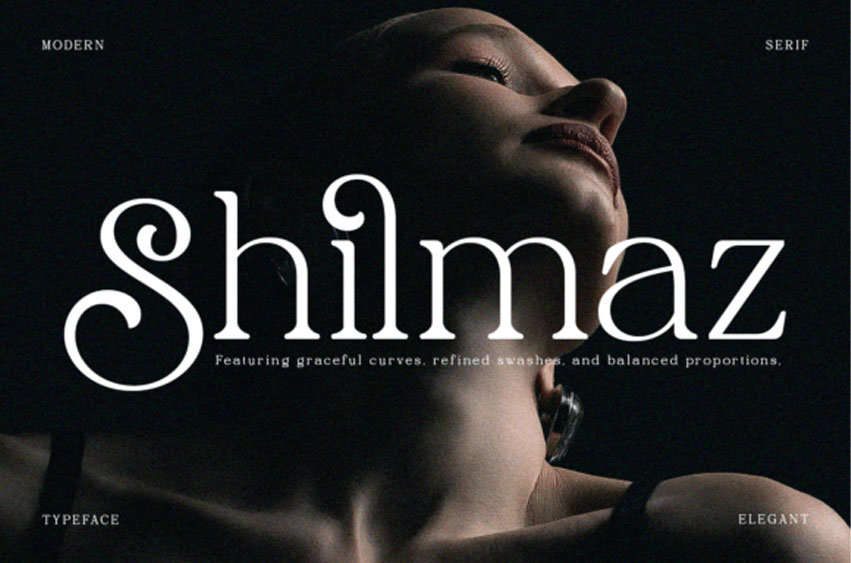
Shilmaz Regular Font
Shilmaz Regular Font is a modern serif font that exudes elegance and timeless sophistication. With its graceful curves, refined swashes, and perfectly balanced proportions, Shilmaz is crafted to infuse every creative project with a sense of luxury and class. It strikes the ideal harmony between modern minimalism and intricate artistic detail, making it an essential choice for designers in search of refined typography.
Expertly designed with precision, Shilmaz features sharp serifs, stylish alternates, and smooth kerning for a professional finish. Its distinctive letterforms add character without compromising readability, ensuring versatility across both print and digital platforms. From bold headlines to delicate body text, Shilmaz seamlessly adapts to diverse design contexts with ease.
Perfect for luxury branding, fashion labels, wedding invitations, editorial layouts, and social media graphics, Shilmaz elevates every visual identity it touches. Whether you’re creating high-end packaging, chic marketing assets, or timeless brand visuals, this font ensures your work leaves a lasting impression. Bring your designs to life with the refined sophistication of Shilmaz today.